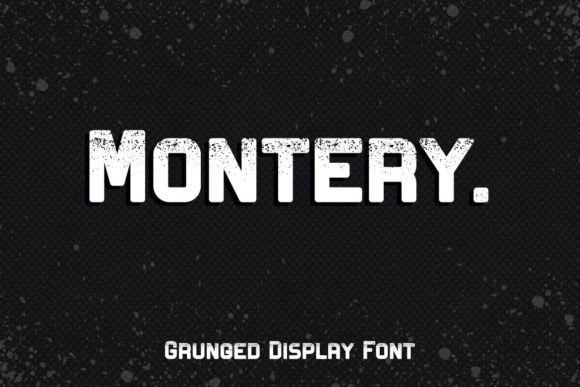
Introducing Montery Font, the ultimate choice for anyone looking to add a unique touch to their designs. Developed by Mightyfire, this bold and eye-catching display font is specifically designed for Facebook. Montery's cool and edgy look is perfect for those looking to make a statement and stand out from the crowd.
With its textured characters and grunge-inspired style, Montery is perfect for creating designs that are both original and unforgettable. Whether you're looking to create a striking poster, a stunning logo, or a captivating social media graphic, Montery has got you covered.
But Montery isn't just about style - it's also incredibly versatile and easy to use. Its clean lines and easy-to-read characters make it perfect for any project, no matter the size or scope. And with its bold and attention-grabbing design, you can be sure that your message will get noticed.